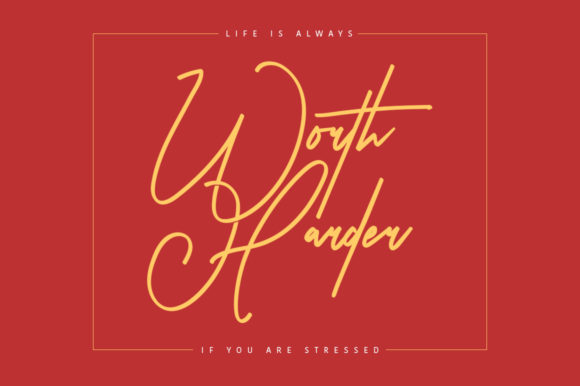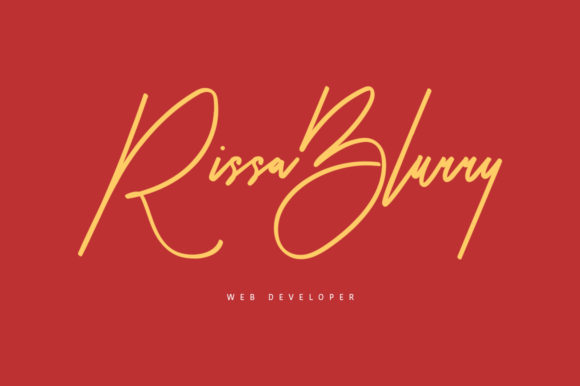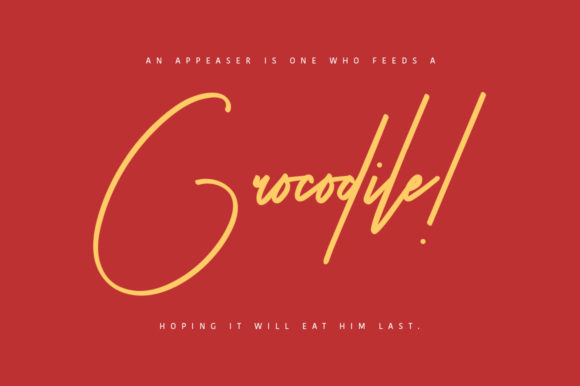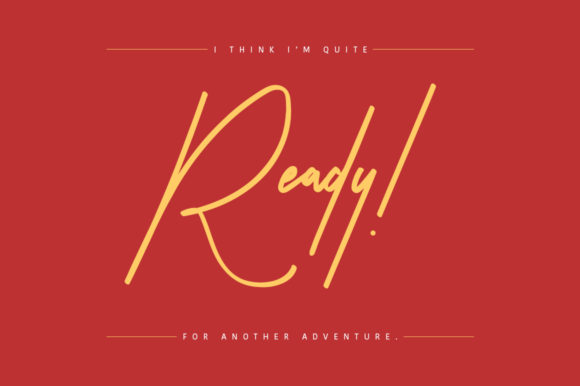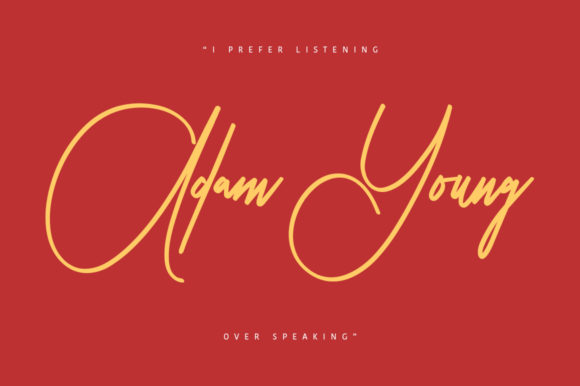
Introduction to Peter Jhons Font
Do you ever find yourself staring at a blank page, searching for the perfect design to bring your creative project to life? For many designers, this moment is a familiar and frustrating experience. But what if you had the perfect tool to make your vision a reality? Enter the Peter Jhons Font, an elegant and thin lettered handwritten font that is sure to captivate your audience.
With its incredibly versatile style, the Peter Jhons Font is perfect for a wide range of design projects, from beautiful wedding invitations to stunning social media posts. Its high-quality design makes it a valuable resource for designers who demand the best. Plus, with a transparent background option, you can easily customize your design to fit your unique needs.
Key Features of Peter Jhons Font
- High-quality design resource suitable for creative projects, offering a unique and elegant aesthetic.
- Perfect for use in logos, branding materials, and other creative projects where a unique and stylish font is required.
Honest Review: Peter Jhons Font
I recently came across the Peter Jhons Font and was excited to give it a try for my latest design project. The first thing I noticed was the beautiful, modern aesthetic of the font, which is perfect for creative projects that require a touch of sophistication.
One of the standout features of the Peter Jhons Font is its versatility. It can be used for both digital and print projects, and its high quality makes it perfect for applications where a clear and readable font is essential. Additionally, the font is available for free download, which is a huge plus for designers on a budget.
Here are some of the things that work well with the Peter Jhons Font:
- ✨ Beautiful, modern aesthetic
- ✨ Versatile and suitable for digital and print projects
- ✨ High quality and clear readability
- ⚠️ Limited font weight options (only light and regular)
- ⚠️ No italic or bold font variations
- ⚠️ Not suitable for designs that require a transparent background (due to the font’s opaque nature)
Overall, I was impressed with the Peter Jhons Font and would definitely recommend it for designers working on creative projects. While it may have some limitations, its high quality and free download make it a valuable resource for any design team.
Tips for Getting the Most Out of Peter Jhons Font
Experiment with different font sizes, colors, and combinations to achieve the desired effect in your design project.
Peter Jhons Font is perfect for:
- Graphic design and branding projects
- Business presentations and documents
- Social media graphics and marketing materials